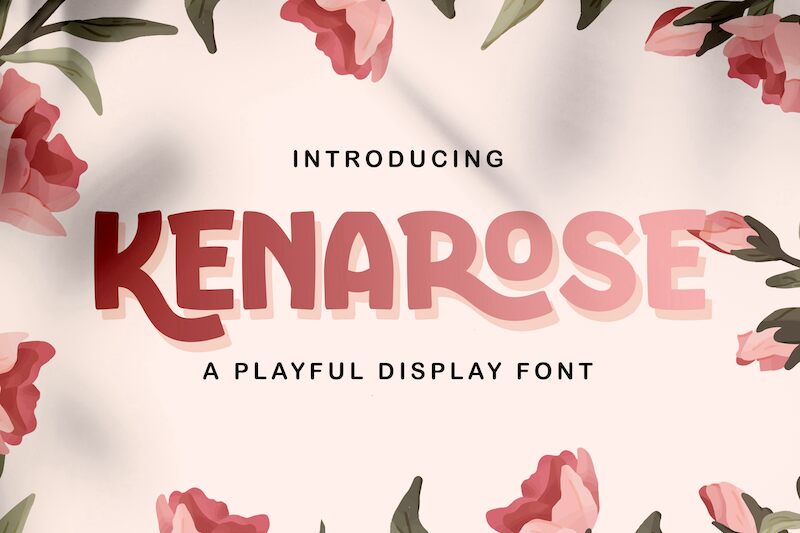
Kenarose font by StringLabs Creative Studio is a bold display font that stands out as the perfect choice for cartoons. Each character embodies modernity, playfulness and quirkiness which make it an incredible addition to your fonts' library. It's so clean and smooth that it's ideal for bringing joy to kids, birthdays, toylines or books. Kenarose is not afraid of combining capital with lowercase letters playing with variations like inline-shadow or multi-color palettes. By knowing its features Kenarose will surely grab everyones attention!
You can use this versatile font in games and apps where high contrast letters bring user-friendliness; websites or education materials showcasing boldness while maximizing legibility; advertisements filled with playful charm captivating young audiences alike-- this style will do wonders!